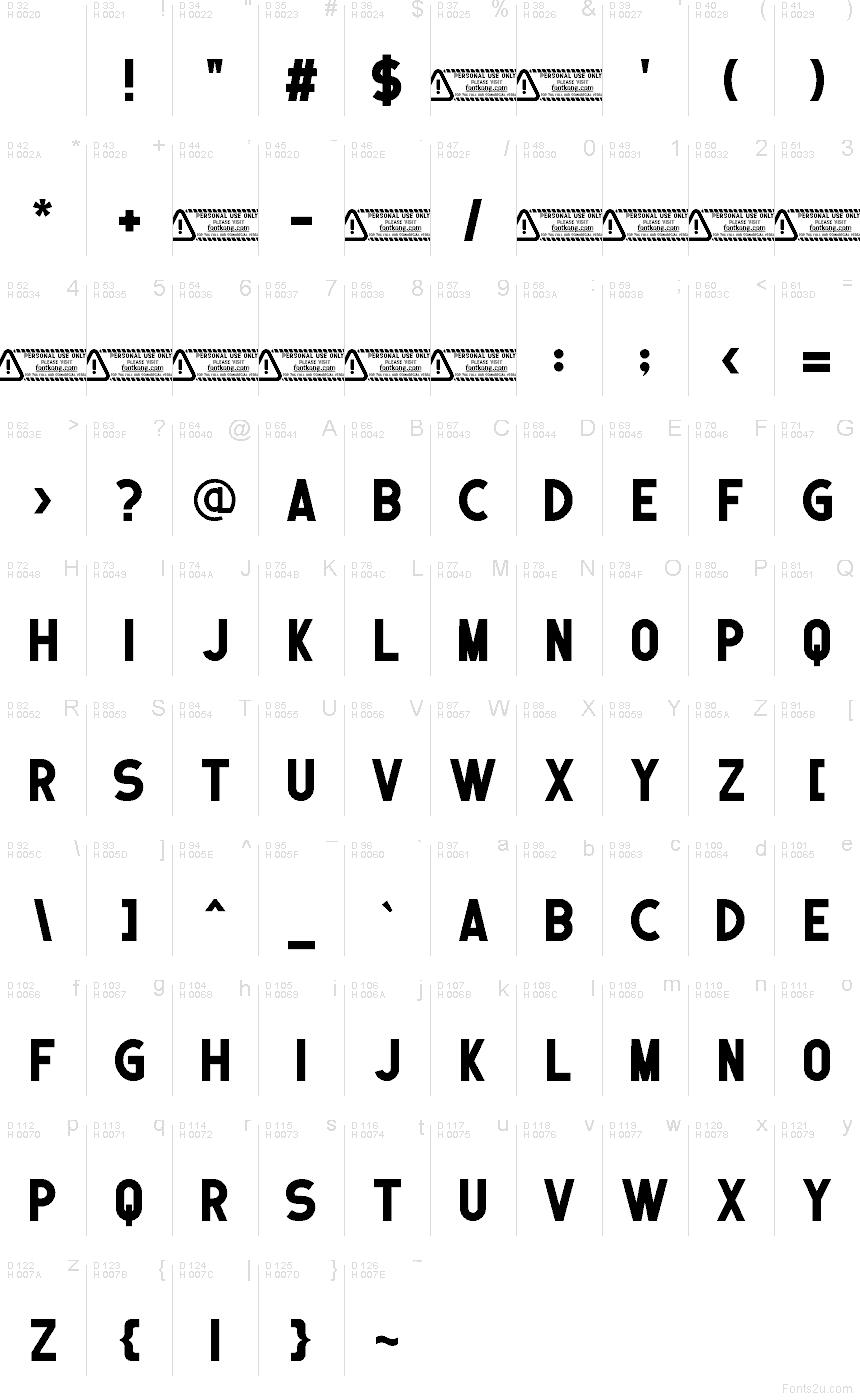
Francisco font by Kong Font is a free sans serif font that hits hard and reads fast. Heavy, blocky letters with broad shoulders and clean vertical cuts give it a solid, poster-ready presence, while the rounded corners on shapes like O soften the blow just enough. The tight rhythm across the wordmark makes text feel unified and strong, even at a glance.
Using Francisco, this free font shines on bold posters, sports branding, packaging, thumbnails, social media graphics, and event titles. Its chunky forms hold their weight in all caps and large sizes, making headlines feel confident and punchy. For longer supporting text, pair Francisco with a simple, neutral sans in a lighter weight to keep layouts clear and balanced.